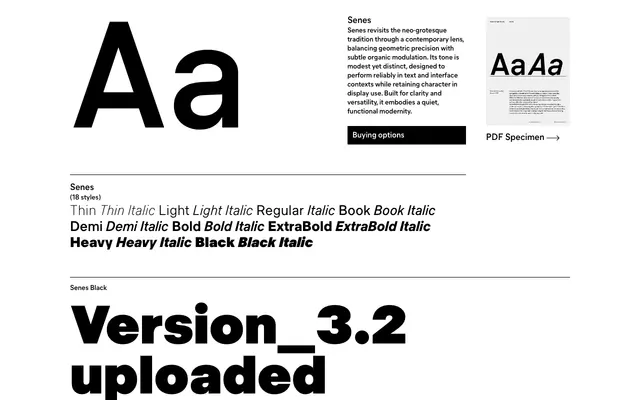
An 18-style neo-grotesque from General Type Studio that introduces subtle organic modulation into an otherwise controlled geometric framework.
Running from Thin to Black with matching italics across nine weights, Senes is built for text and interface work while holding enough character to carry display sizes. The family includes slashed zero and tabular figures as OpenType options, and the interplay between geometric structure and slight organic softening gives it more warmth than a strict Swiss grotesque. It occupies ground between workhorse and considered typeface.
The foundry explicitly positions Senes within the neo-grotesque tradition, with geometric precision tempered by organic modulation — placing it squarely in that category.